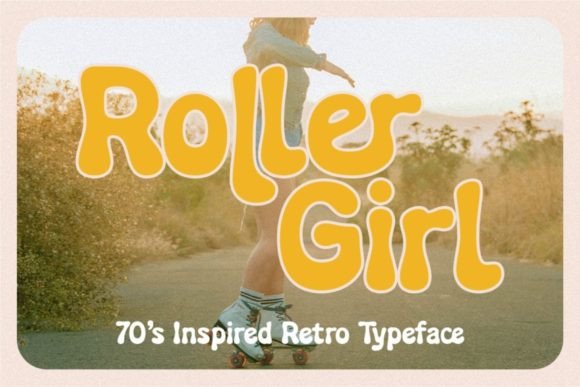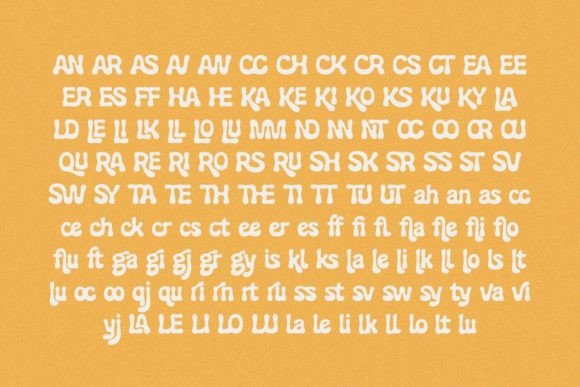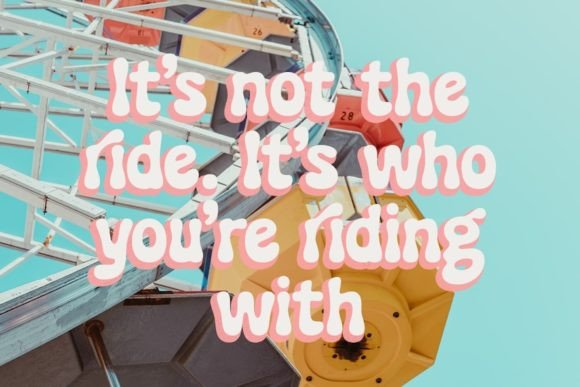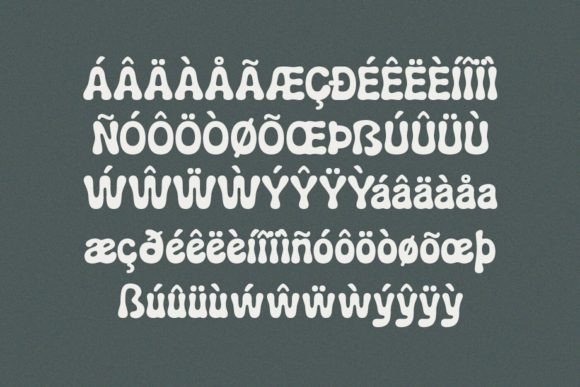
Roller Girl Font
About the Roller Girl Font
Let us introduce you to Roller Girl Font, where timeless design meets modern craftsmanship. Roller Girl is a bubbly ligature-filled 70’s 70-inspired retro font. Roller Girl has easygoing curves and a laid-back aesthetic. It has a ton of ligatures in both upper and lower case that can help you create unique designs that stand out.
Roller Girl’s playful personality makes it ideal for headlines, short text blocks on posters, branding elements for youthful brands (e.g., clothing, skate shops, ice cream parlors), and packaging designs that need a retro vibe. However, its low x-height and decorative ligatures make it unsuitable for body copy or UI elements requiring high readability.
This font pairs well with clean sans-serif fonts like Open Sans or Lato for a balanced contrast of styles. For a more vintage feel, consider pairing it with a serif like Playfair Display or a slightly more geometric sans-serif such as Montserrat. Avoid pairing it with other highly decorative fonts as this can lead to visual clutter.
Roller Girl projects a fun, energetic, and slightly rebellious personality. Its retro aesthetic works best when used sparingly to accentuate key elements within a larger design.
Roller Girl Font Usage Examples
Roller Girl Font Example